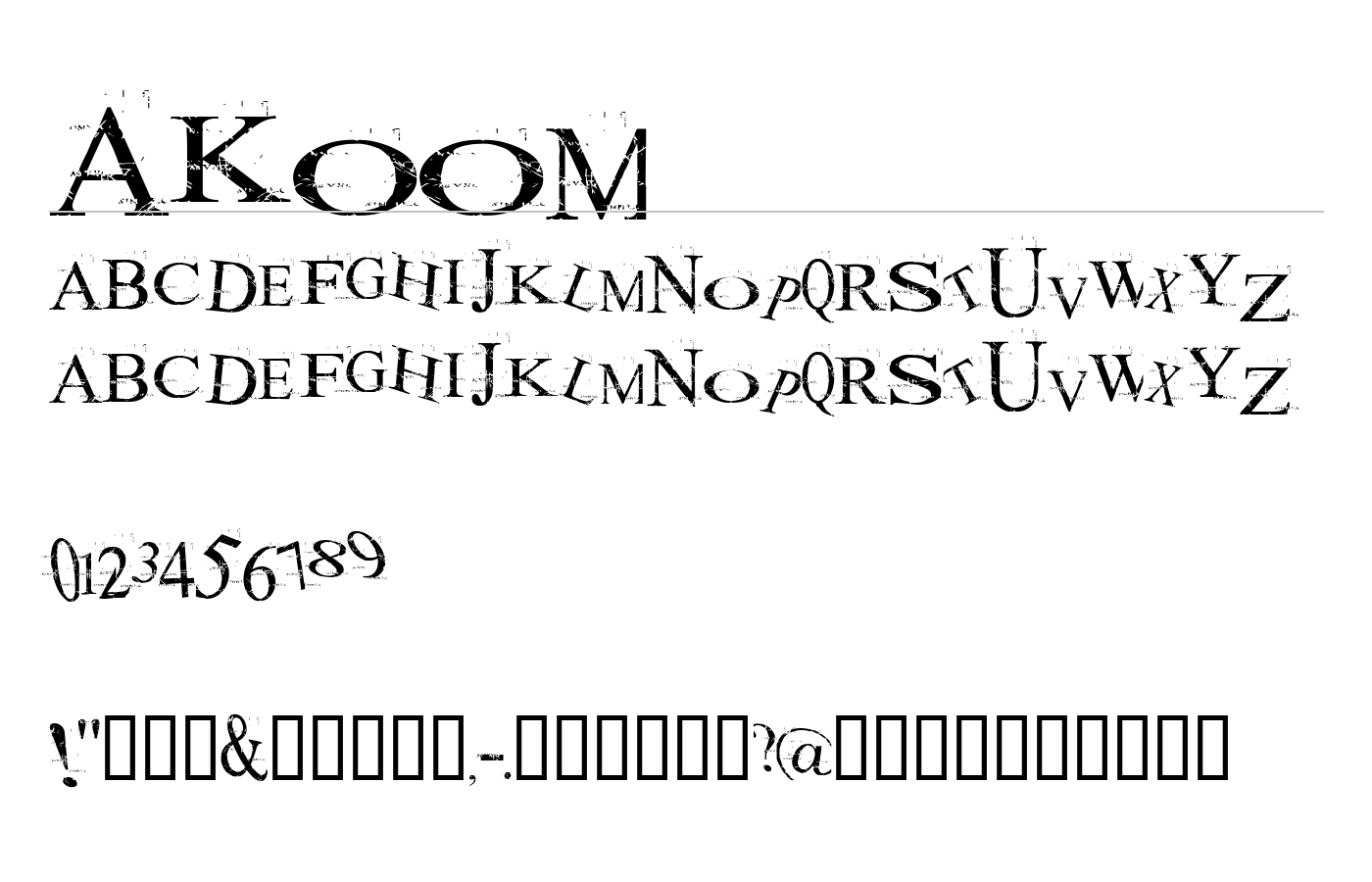
Akoom is a distinctive serif font with an artistic, slightly distressed appearance that adds character and a vintage touch. It features high contrast strokes, sharp serifs, and unique letterforms that convey an elegant yet edgy personality, making it ideal for creative branding, editorial headlines, and designs seeking a sophisticated, unconventional flair. This font works well where a blend of classic refinement and bold individuality is desired.